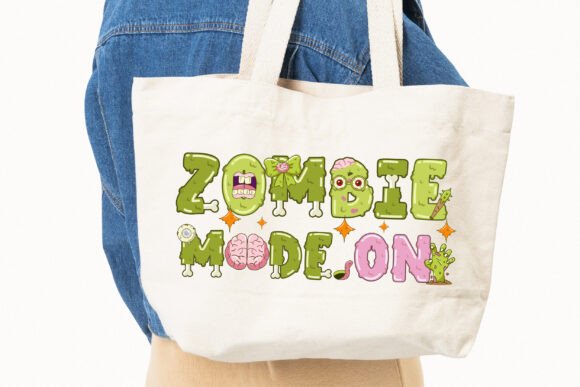
Zombie Bone Font
Introducing “Zombie Bone,” a funny and frightfully fun Halloween font that’s bursting with quirky, gross, and gooey charm! Designed with slimy textures in spooky shades of green and pink, this 4-color font brings a playful undead twist to your Halloween projects. Whether you’re crafting Halloween posters, party invitations, stickers, T-shirt designs, or spooky printables, “Zombie Bone” sets the perfect creepy-cute tone. Plus, it comes with 20 matching doodles featuring pumpkins, potions, syringes, creepy hands, skulls, and more—everything you need to make your designs come alive (or undead)!